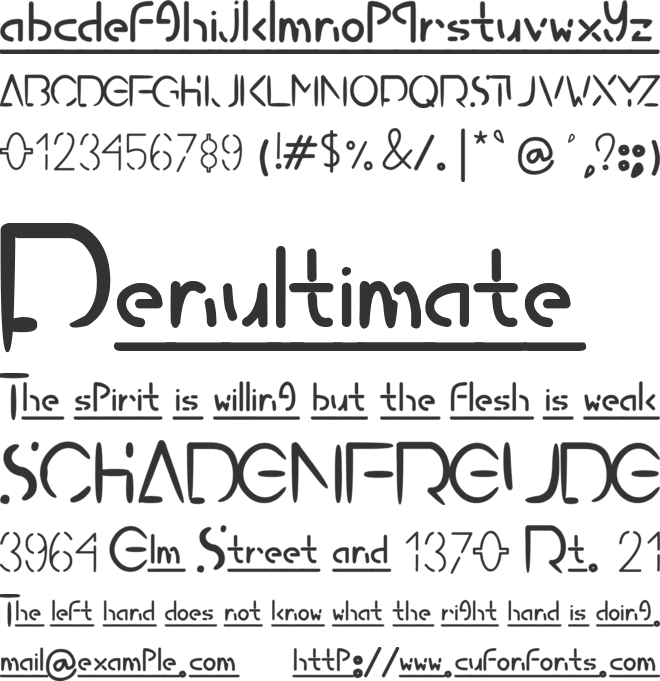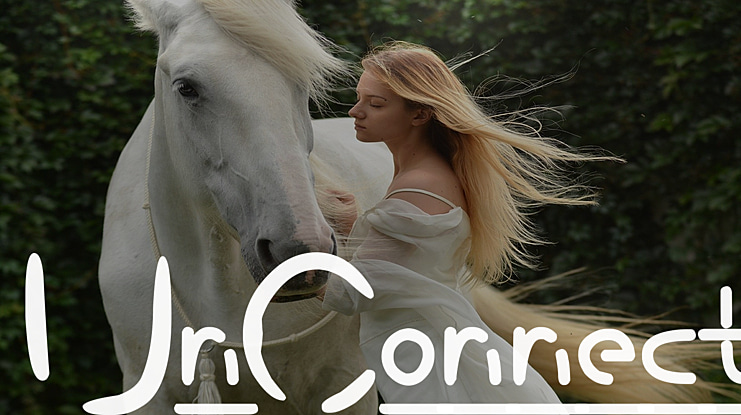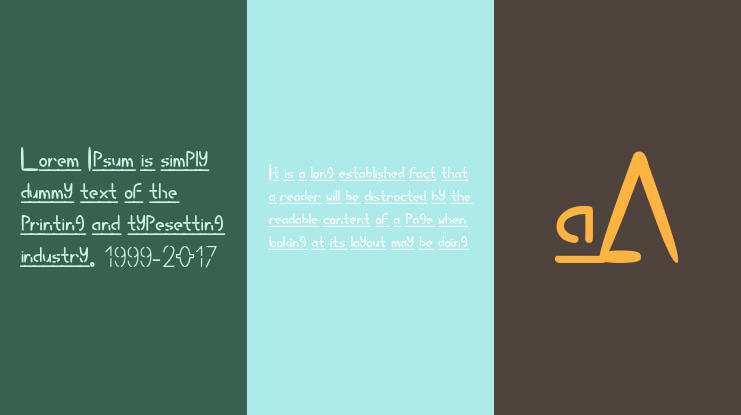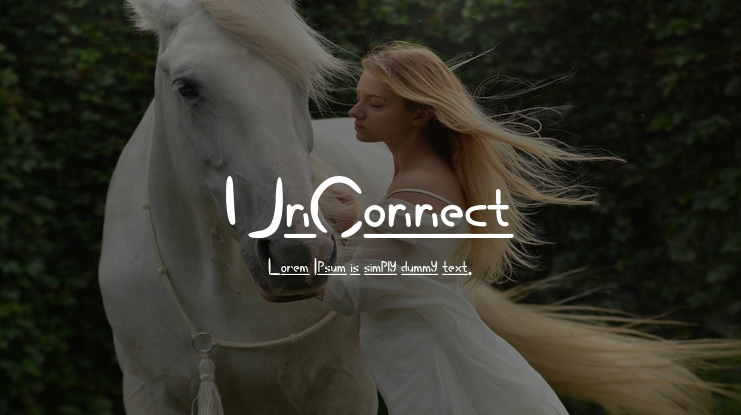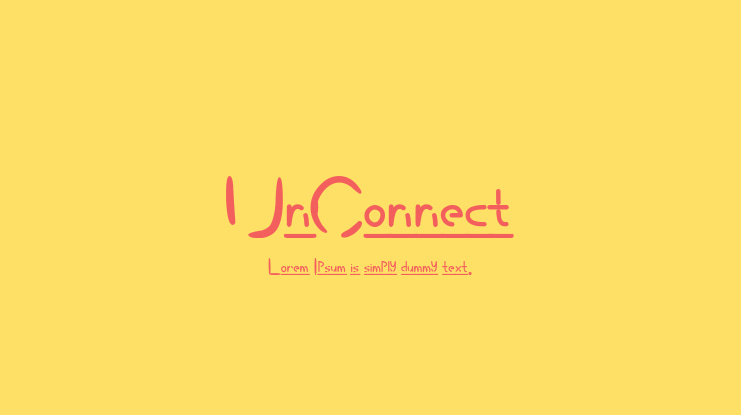
UnConnect Font
This enchanting font will turn any creative idea into a true standout. Perfect fit for all of your logos, branding, social media, etc. Get creative with its unique playfulness, and use it to brighten up any crafting project! Please note that this demo font is for personal use only.!! If you want to use this font for commercial use, you need to purchase a commercial license here: https://www.creativefabrica.com/product/unconnect/ref/161900/